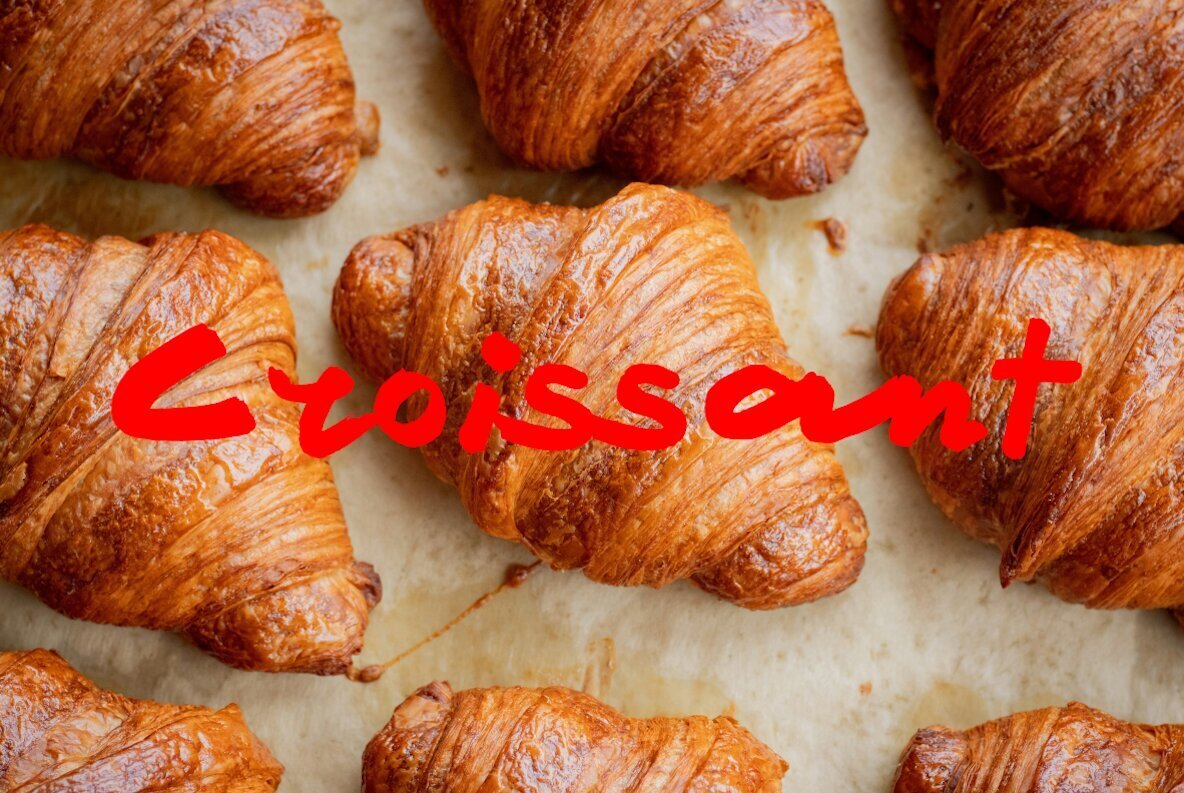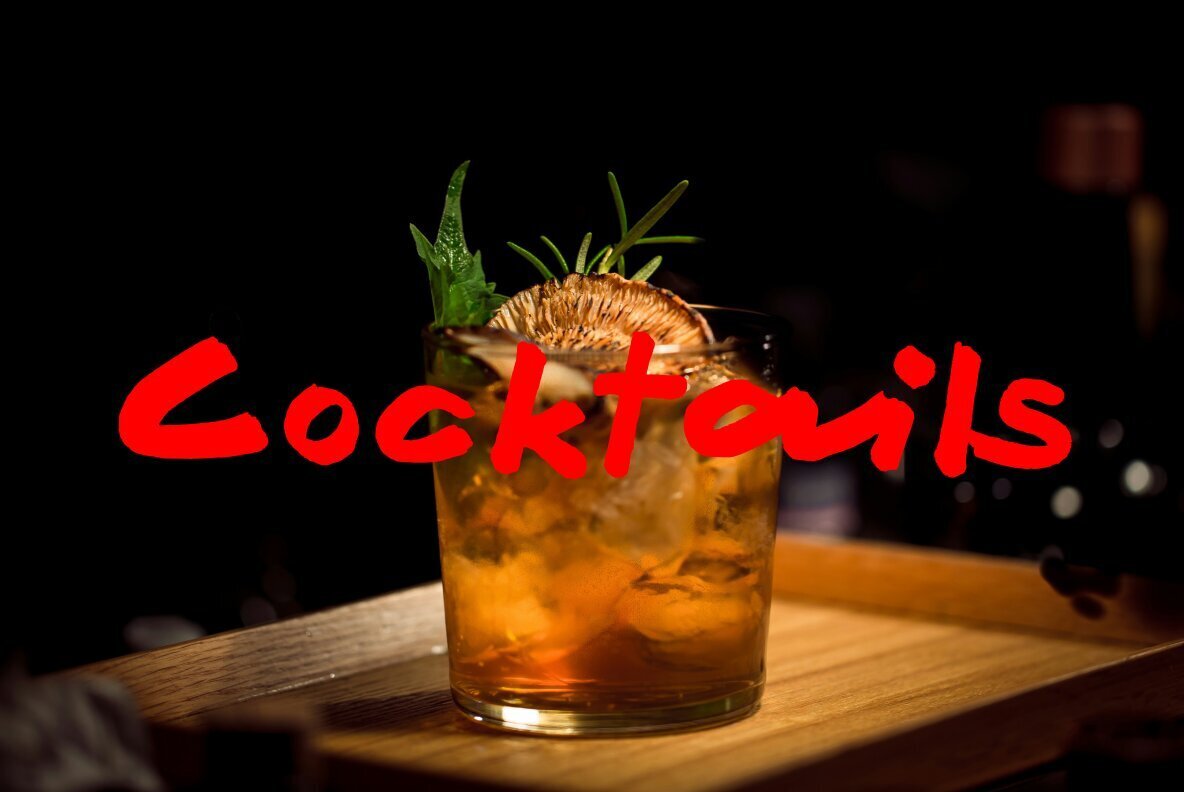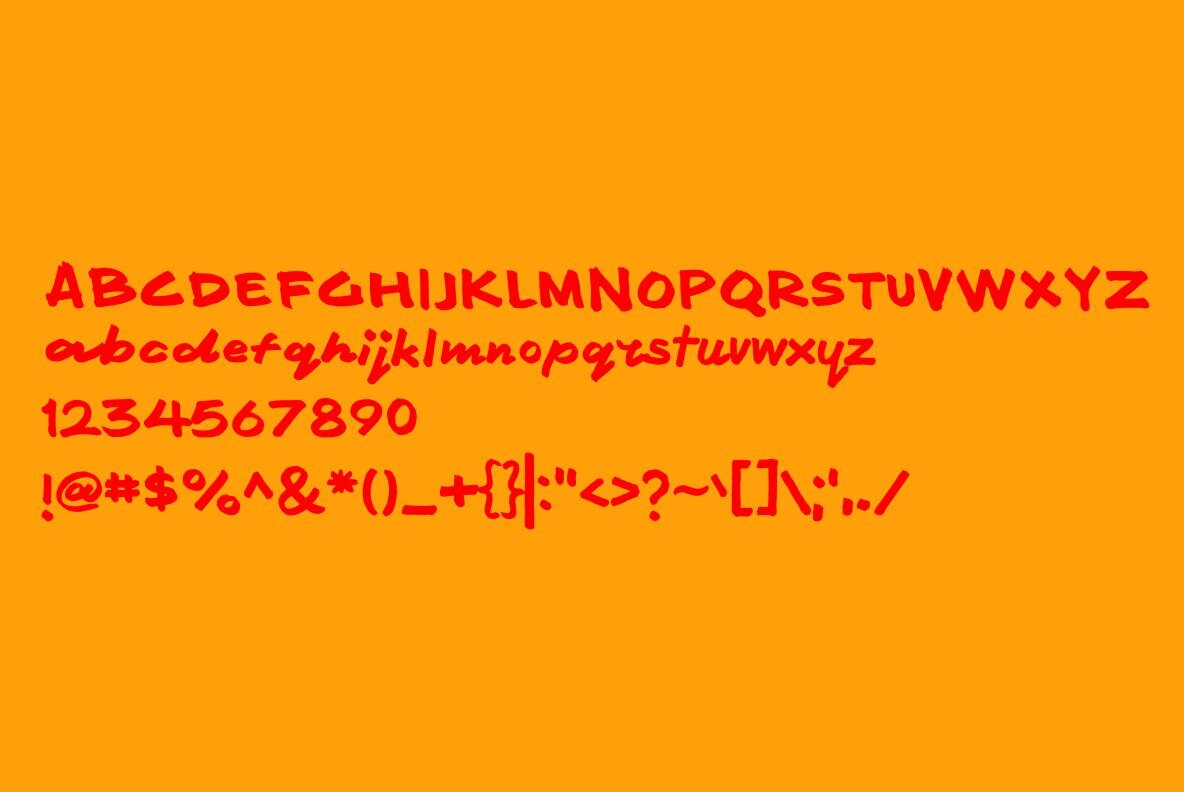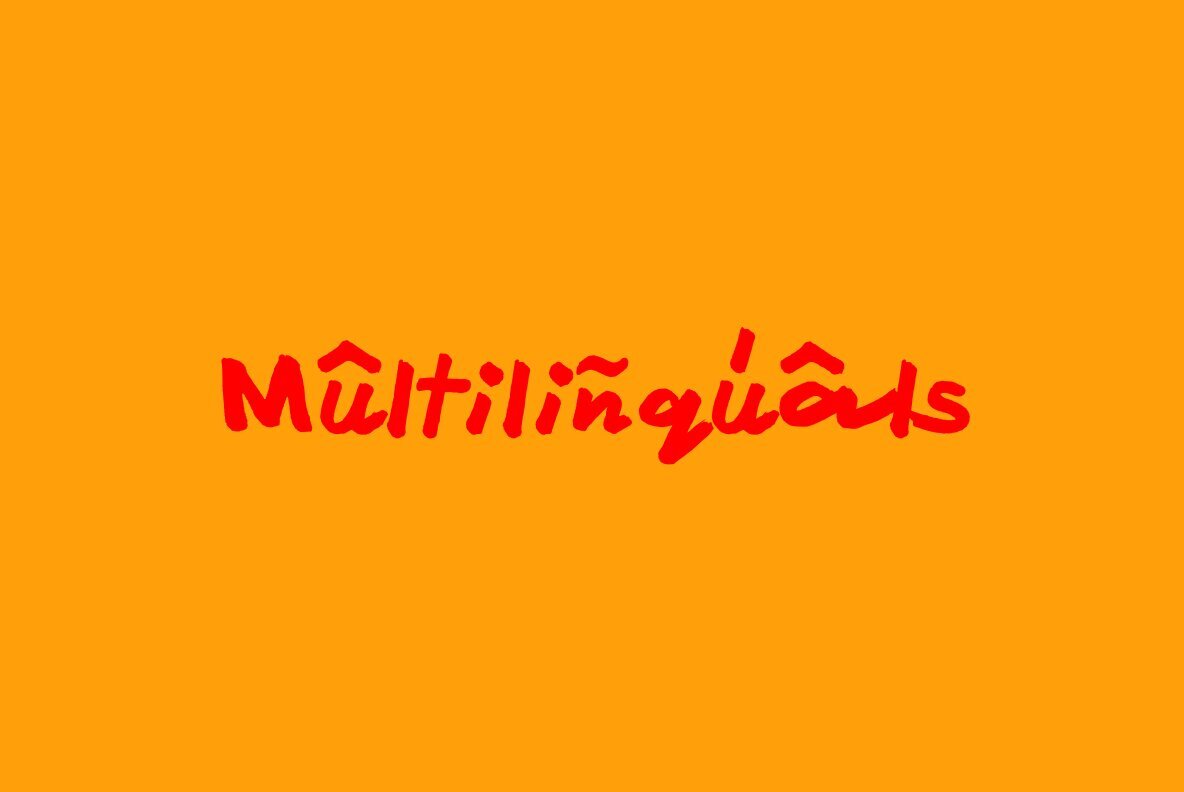
Teatre Font
Teatre
Inspired by the authenticity of a vintage bakery design, the Teatre Font is made with marker strokes and a slightly irregular arrangement of characters to create the desired value of authenticity. Suitable for use in casual design.